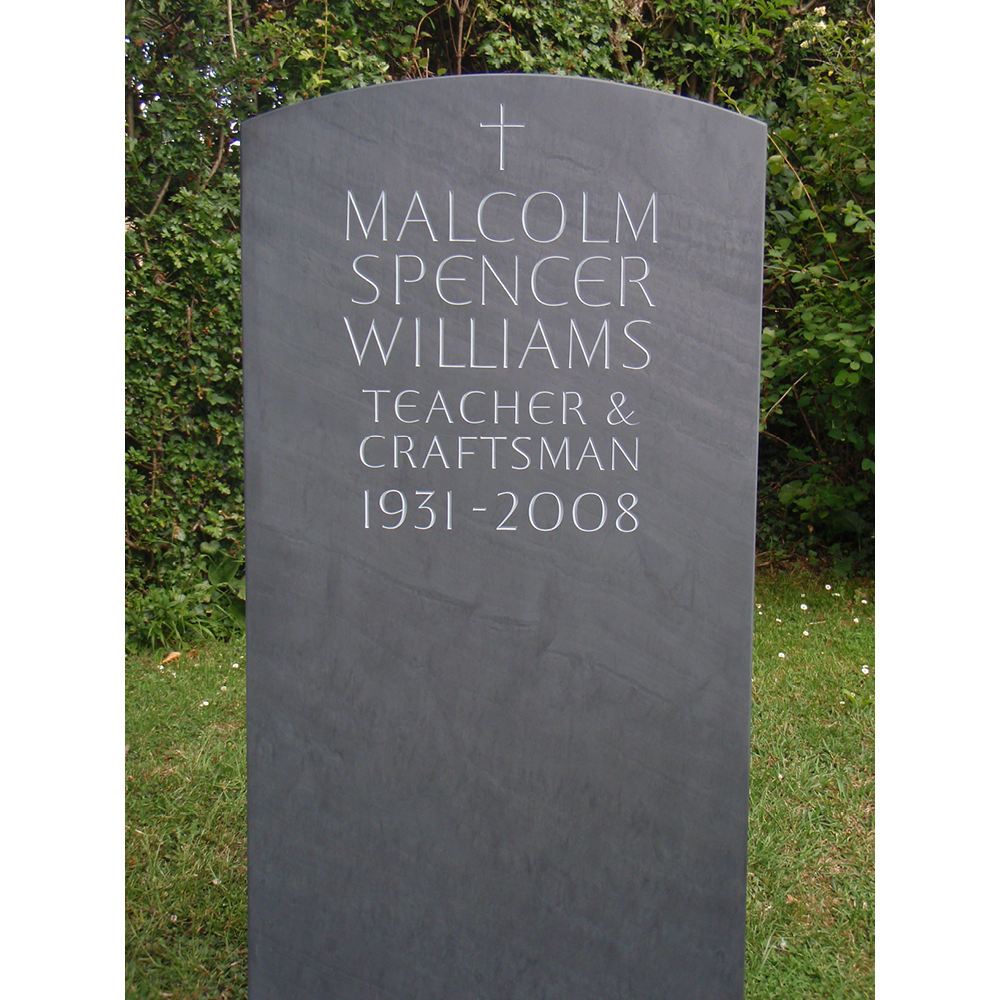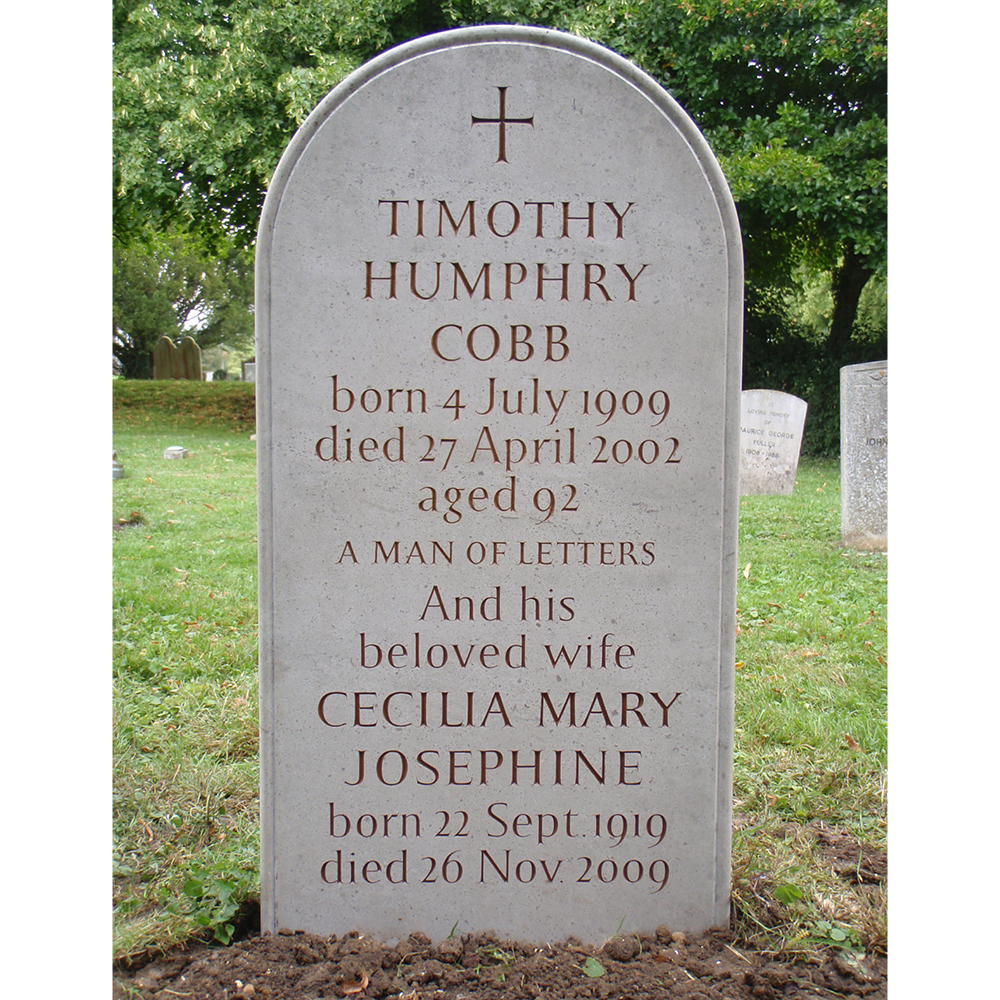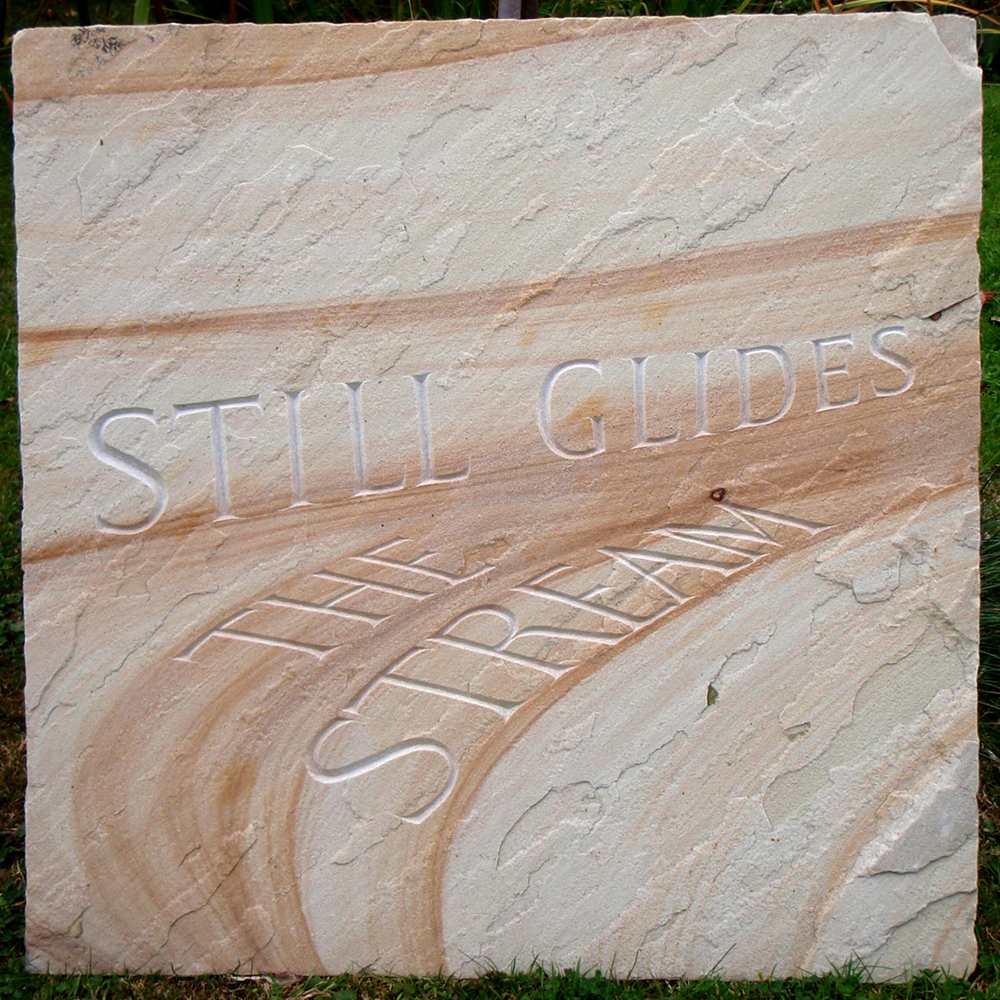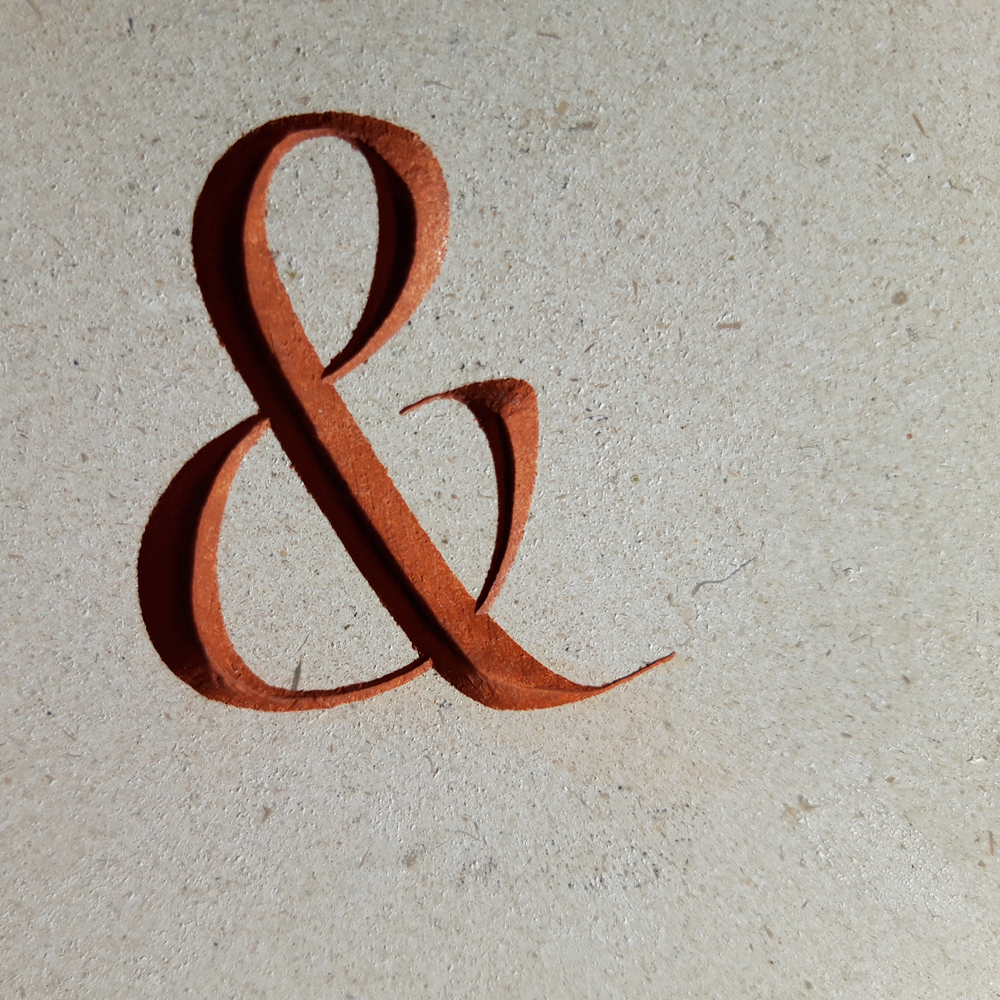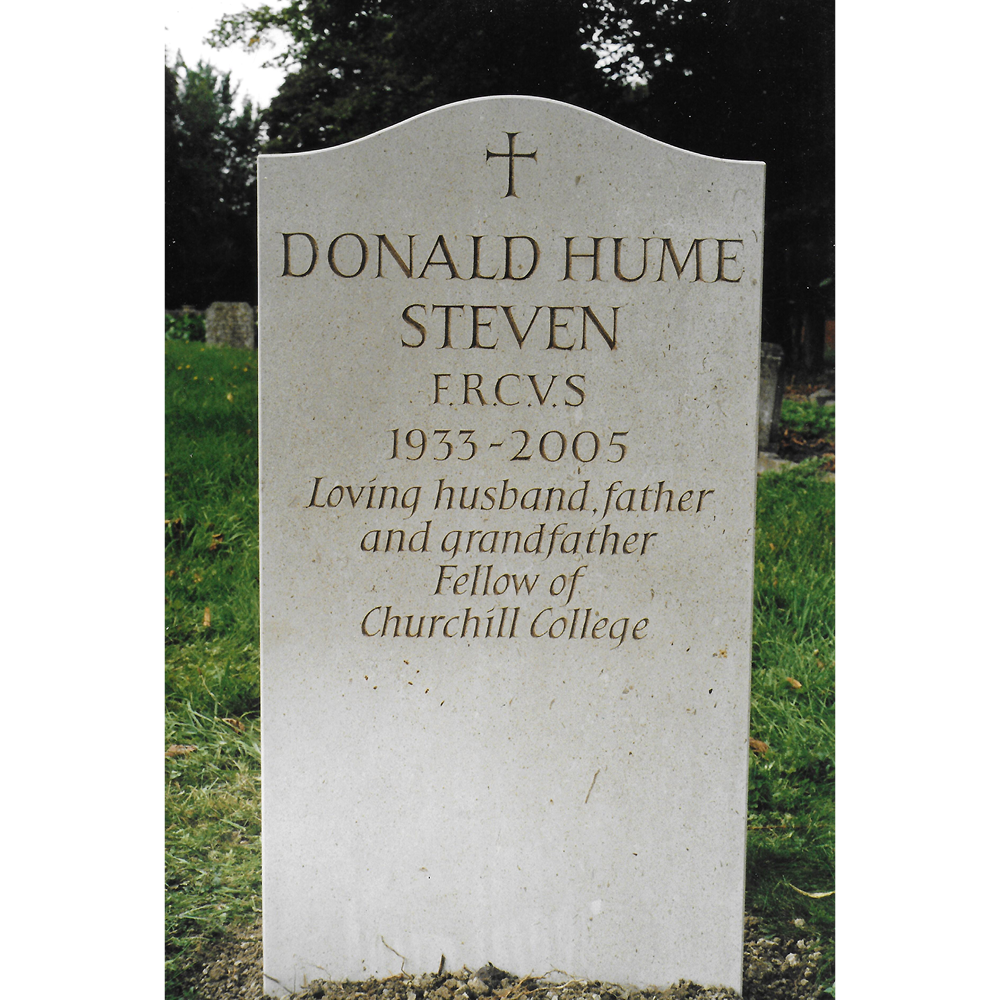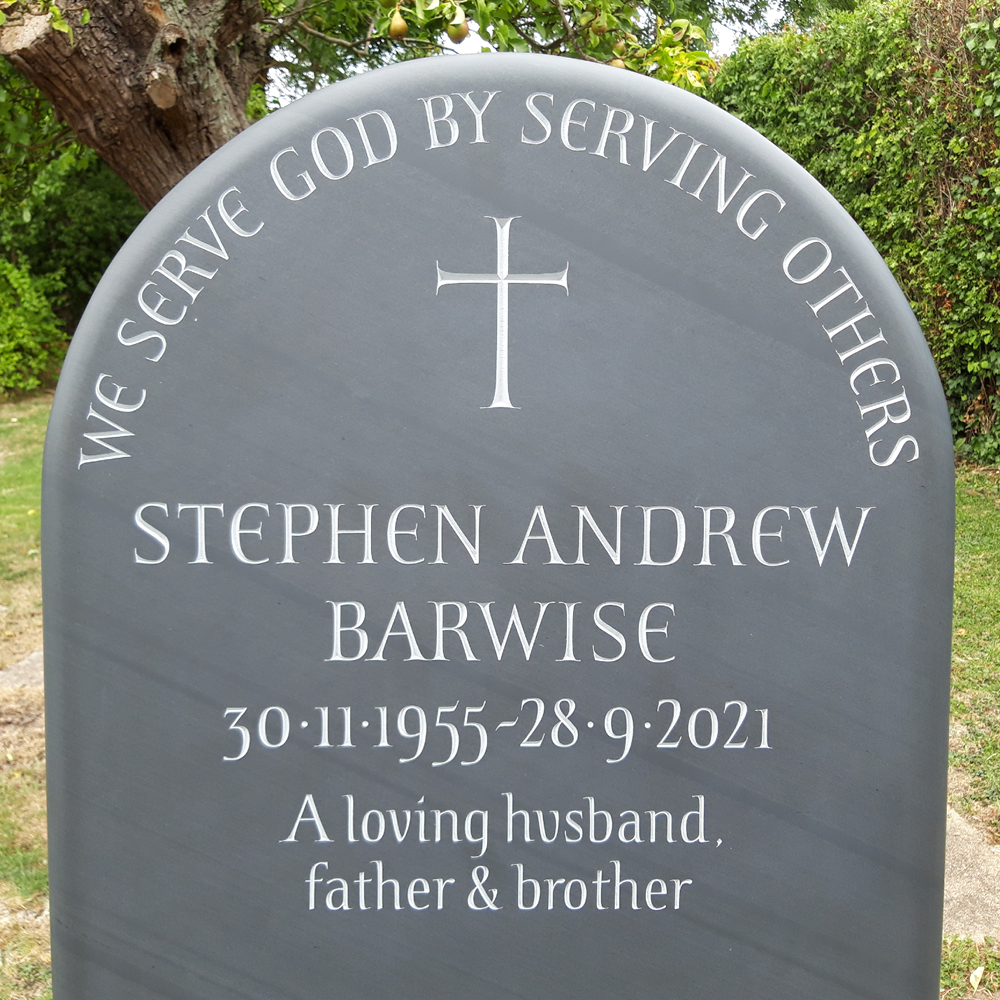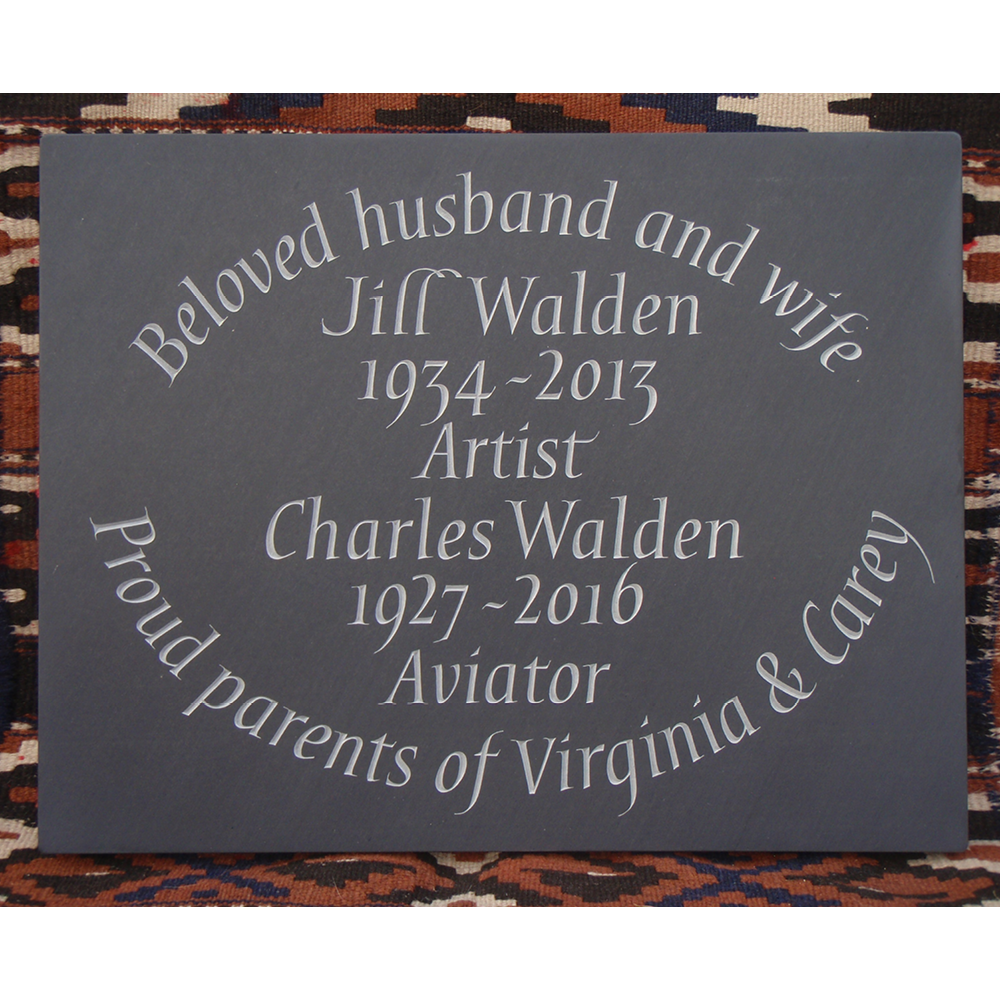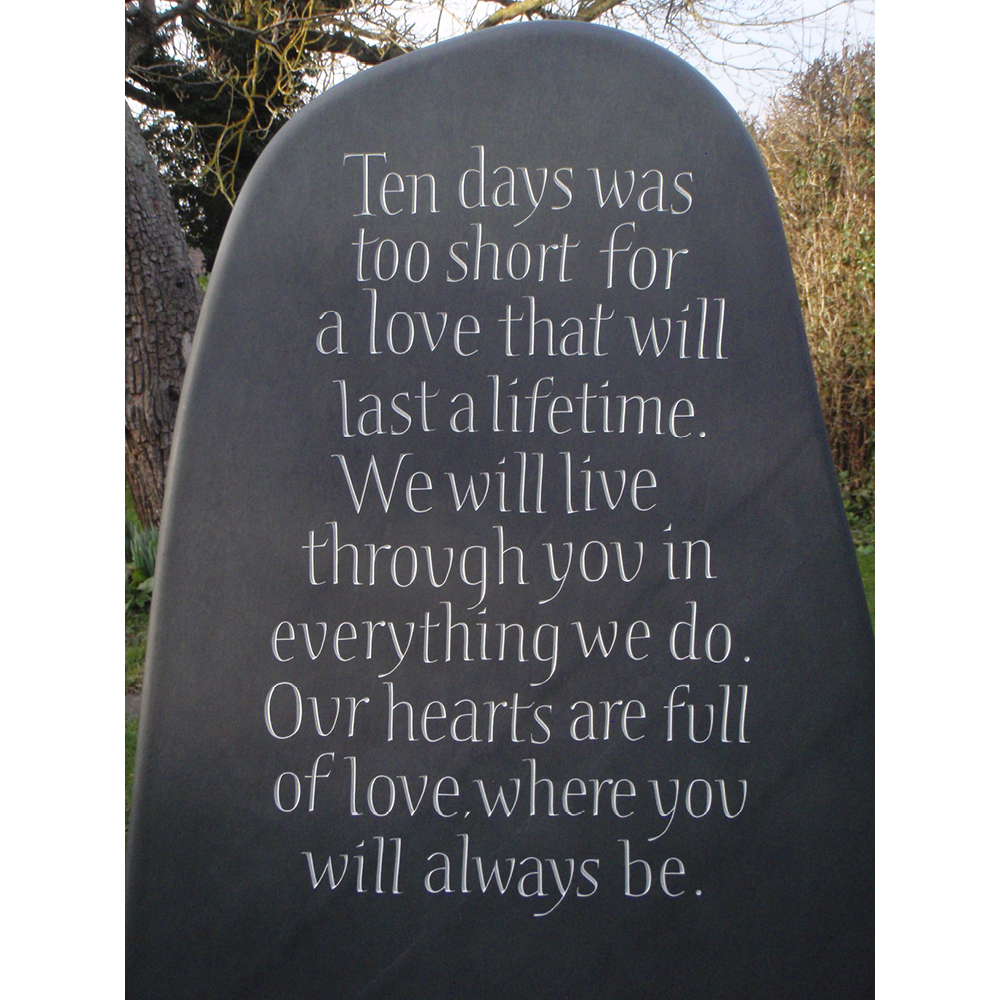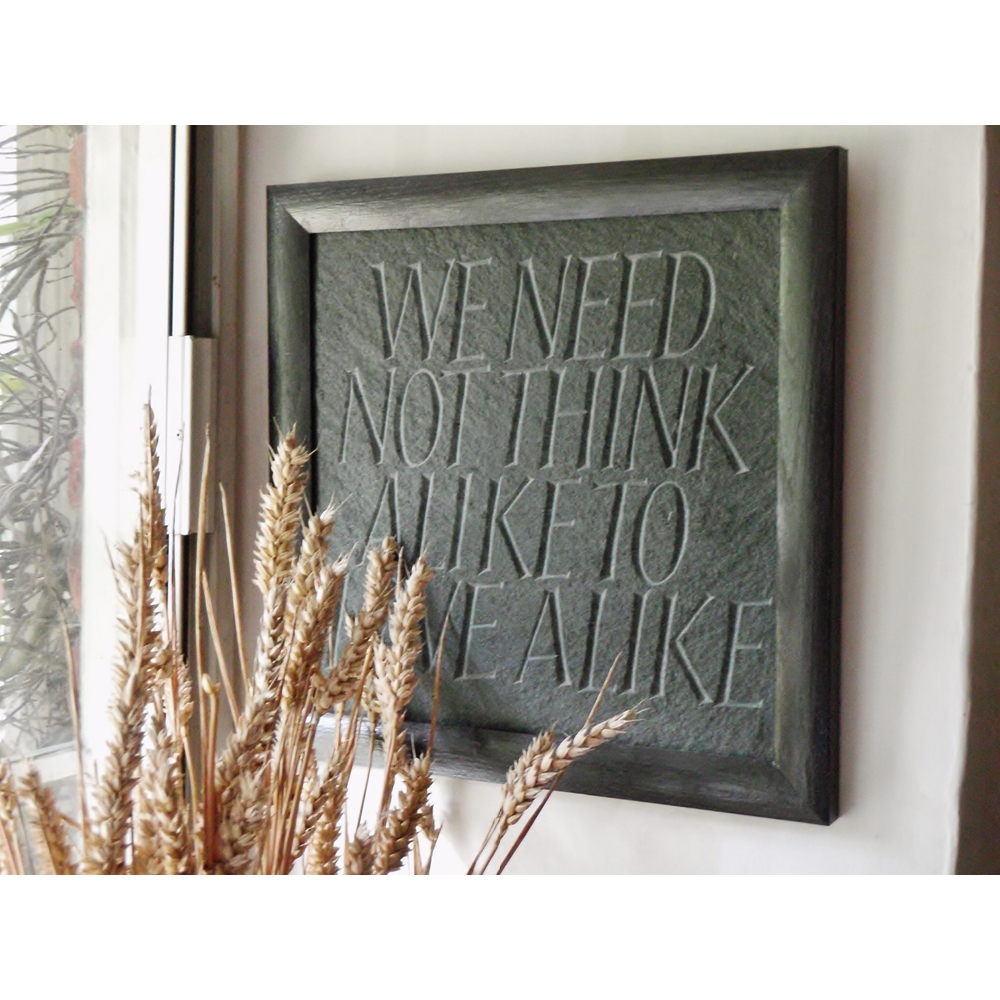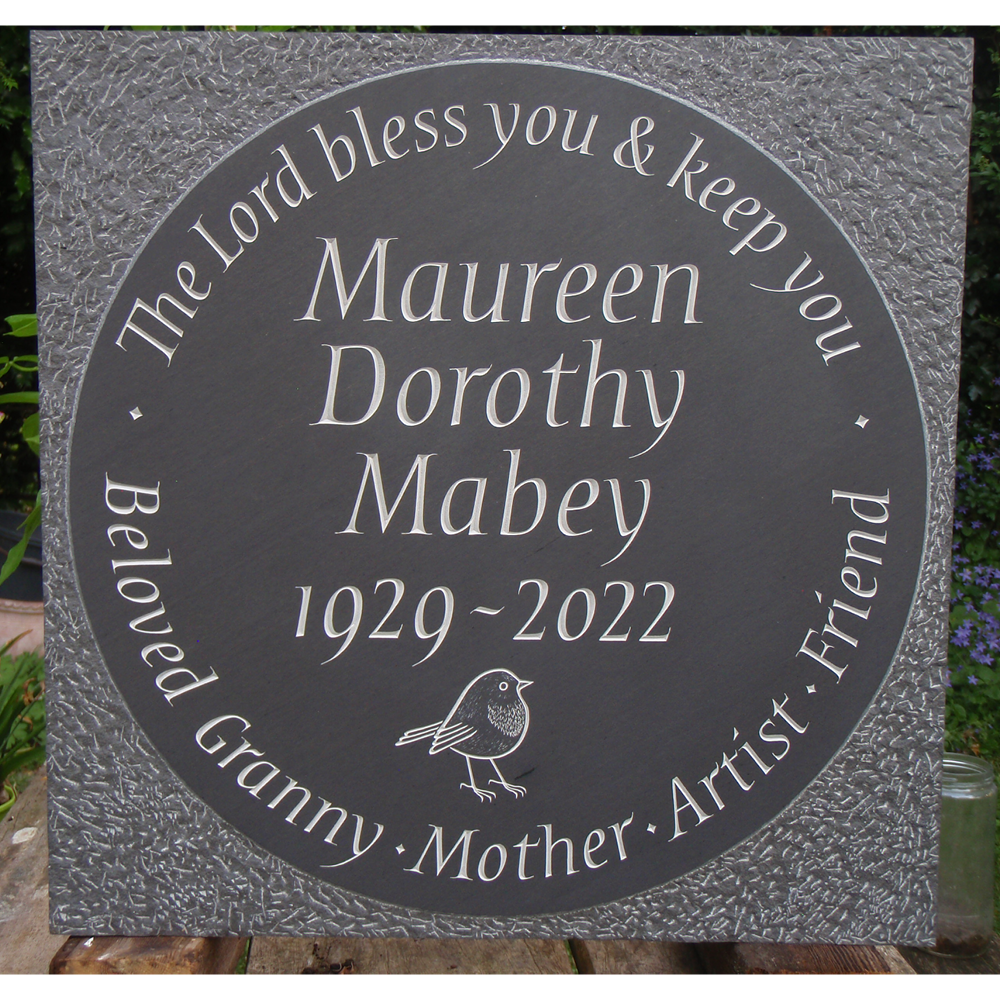
My entry into the profession of stone-carving came via an apprenticeship at the Cardozo-Kindersley Workshop in Cambridge.
Prior to this I had some exposure to carved letters through my father, Kevin, who had been a letter carver all his life. He in turn was following in the footsteps of his father, Laurie, who was an assistant to Eric Gill during the first half of the twentieth Century.
After completing my apprenticeship in 2003 I entered the "family firm". My father retired in the mid-noughties, and died in 2013, but I like to think that some aspects of his style live on in my own work.